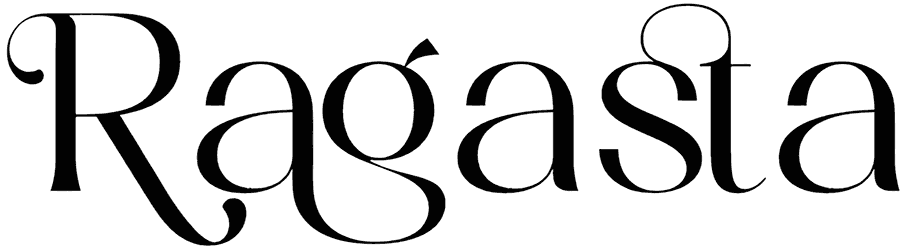
Ragasta Font
Using a classic and confident shape of words, your design would be more impressive. This luxury font with a unique and elegant outward can be harmonized with various themes. Ragasta supports full characters in two versions, which means you can count on this item for any short or long text, from branding to books.